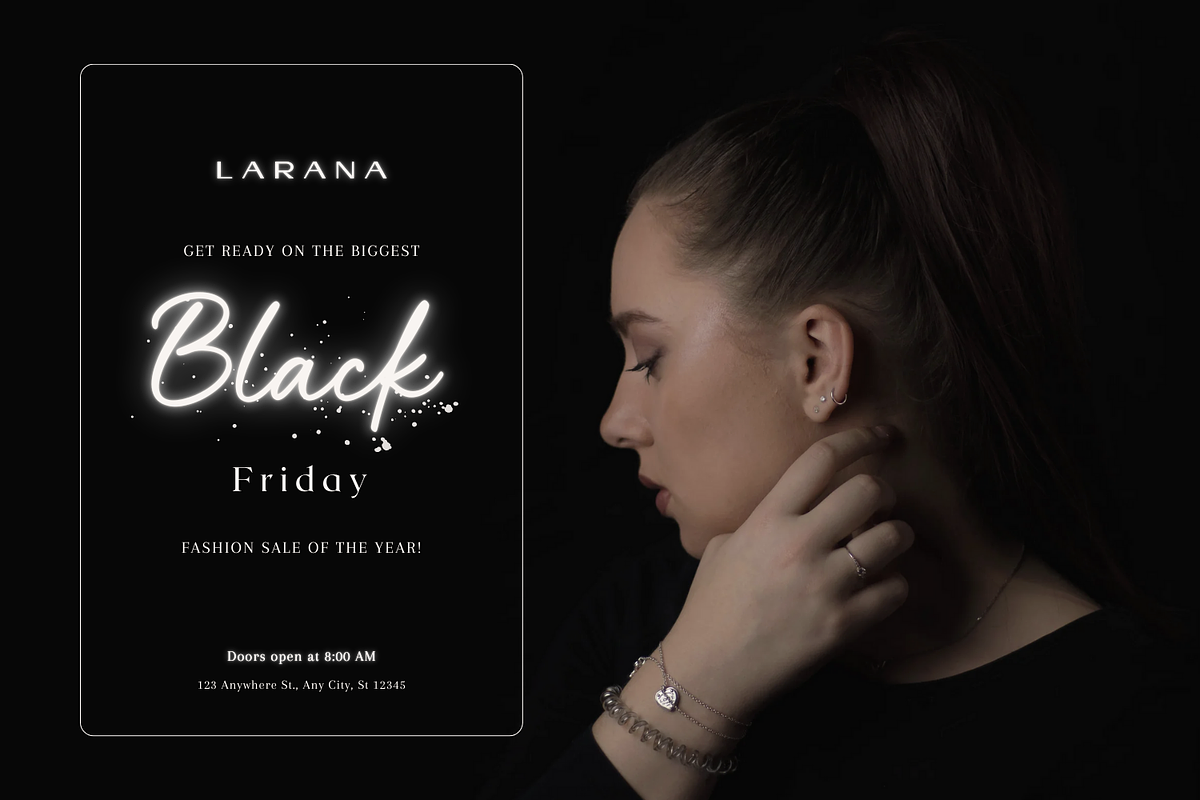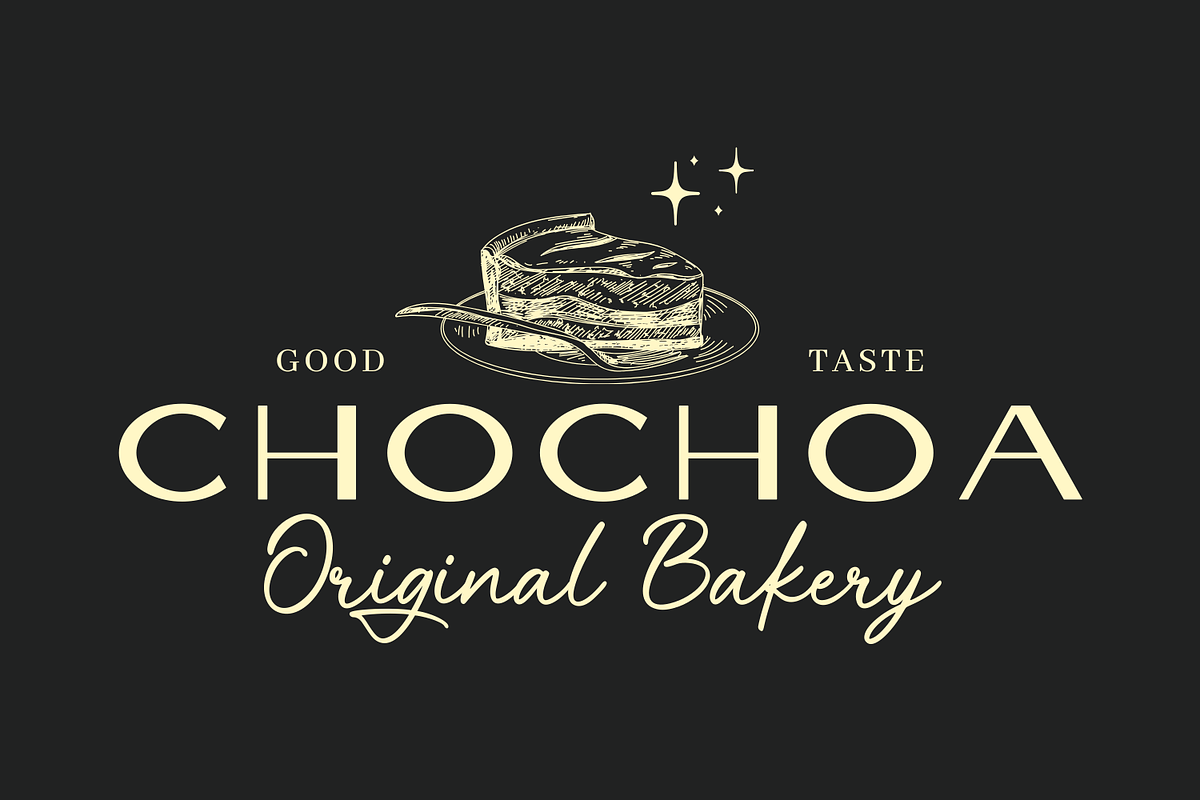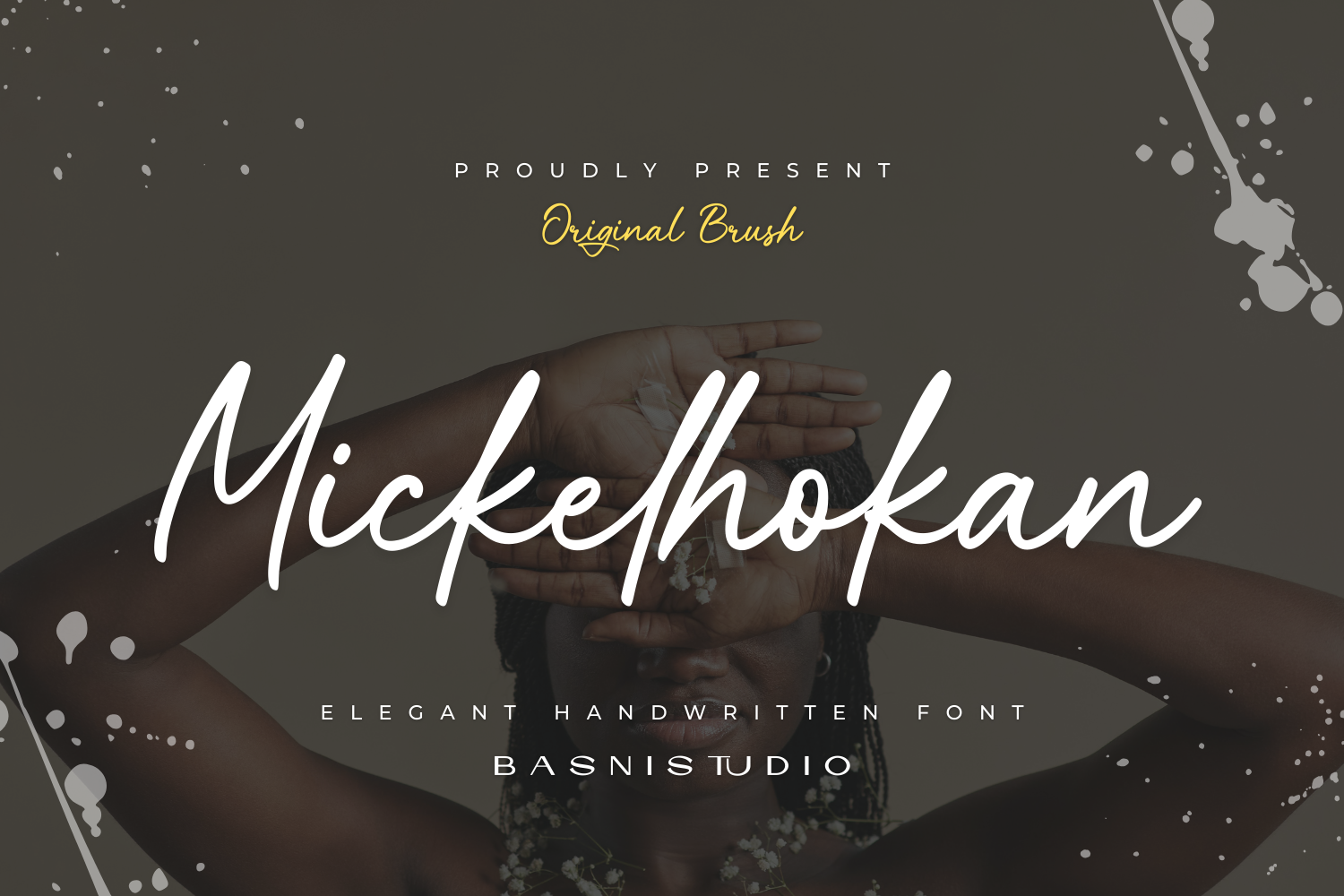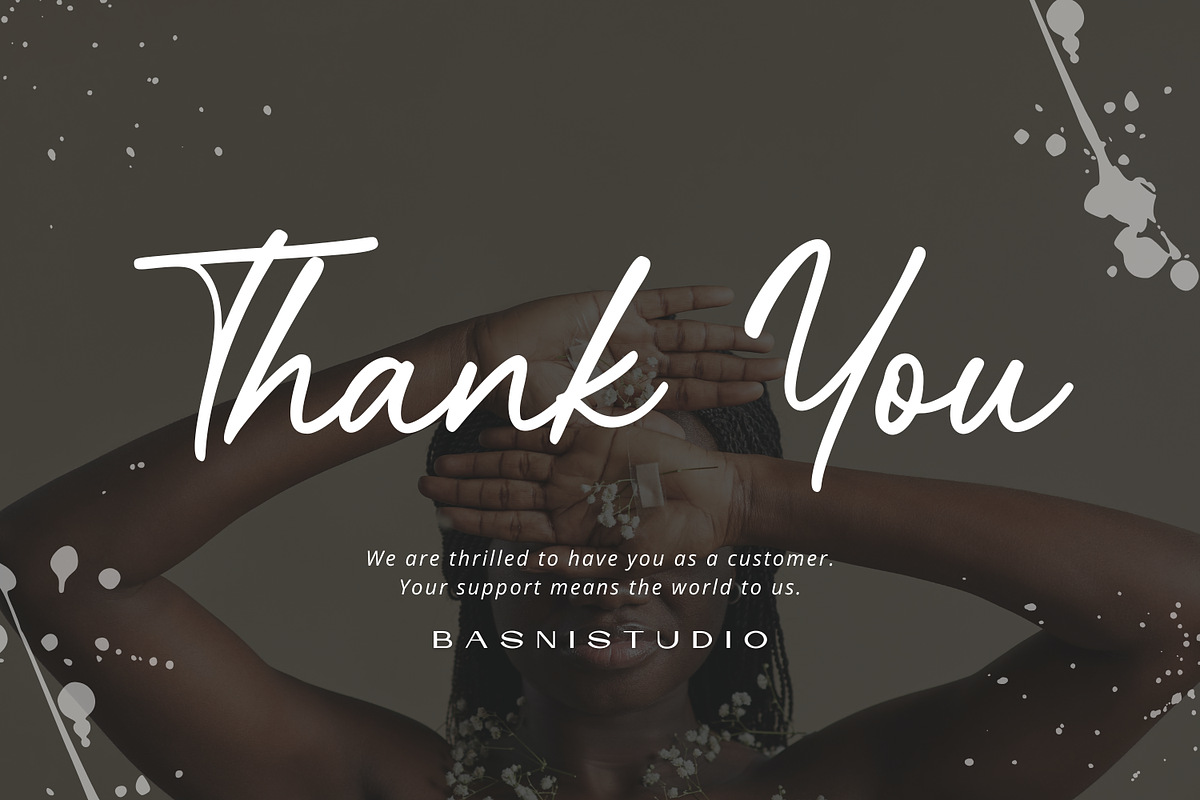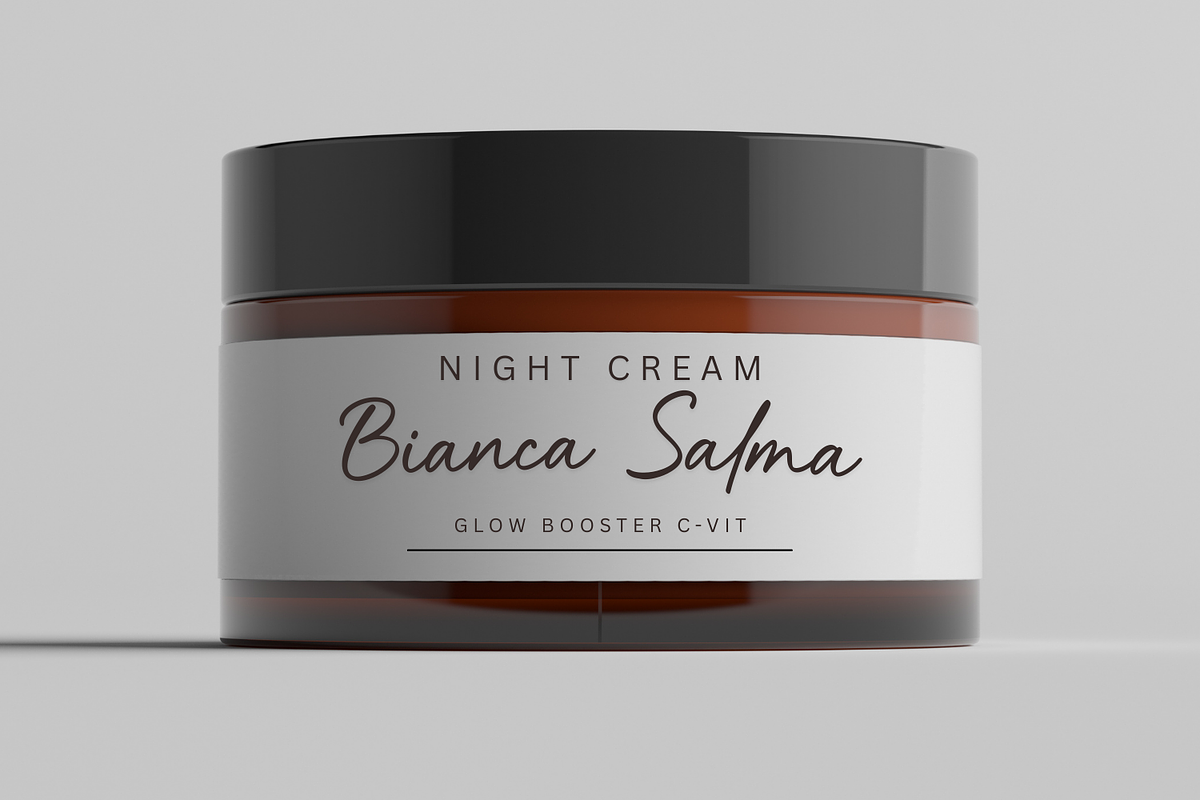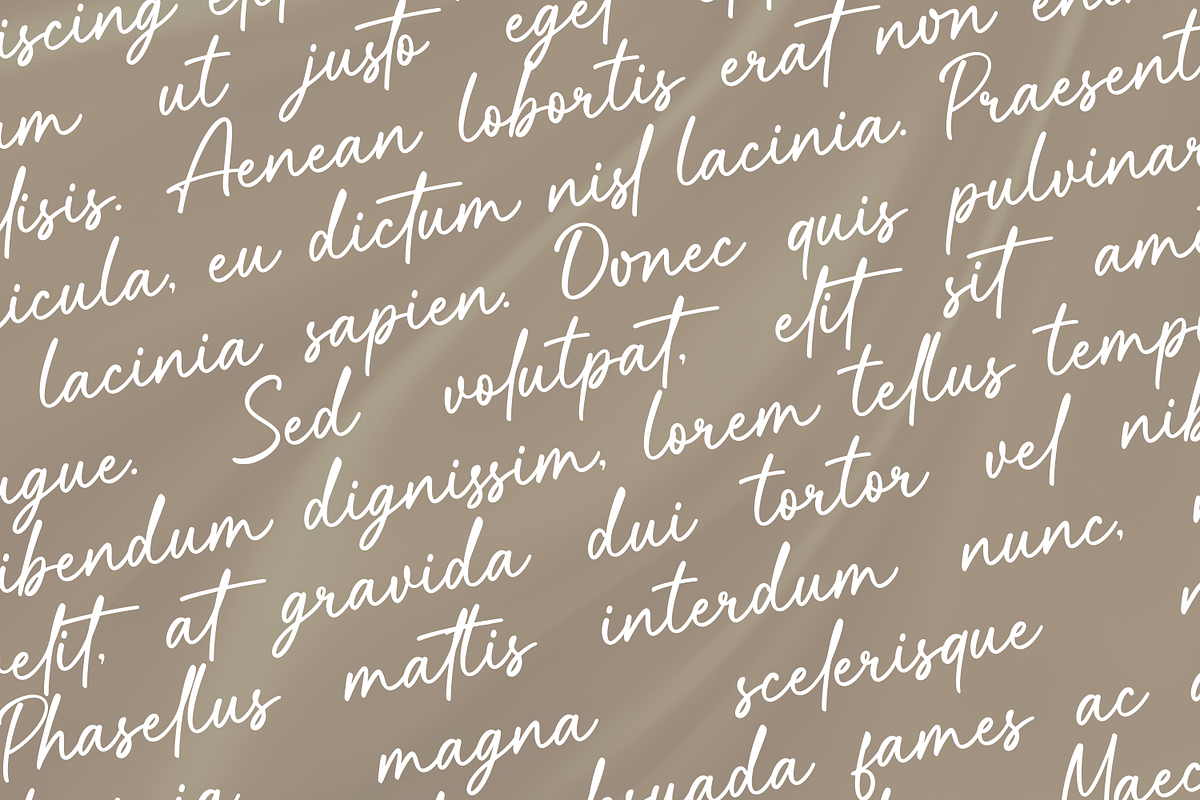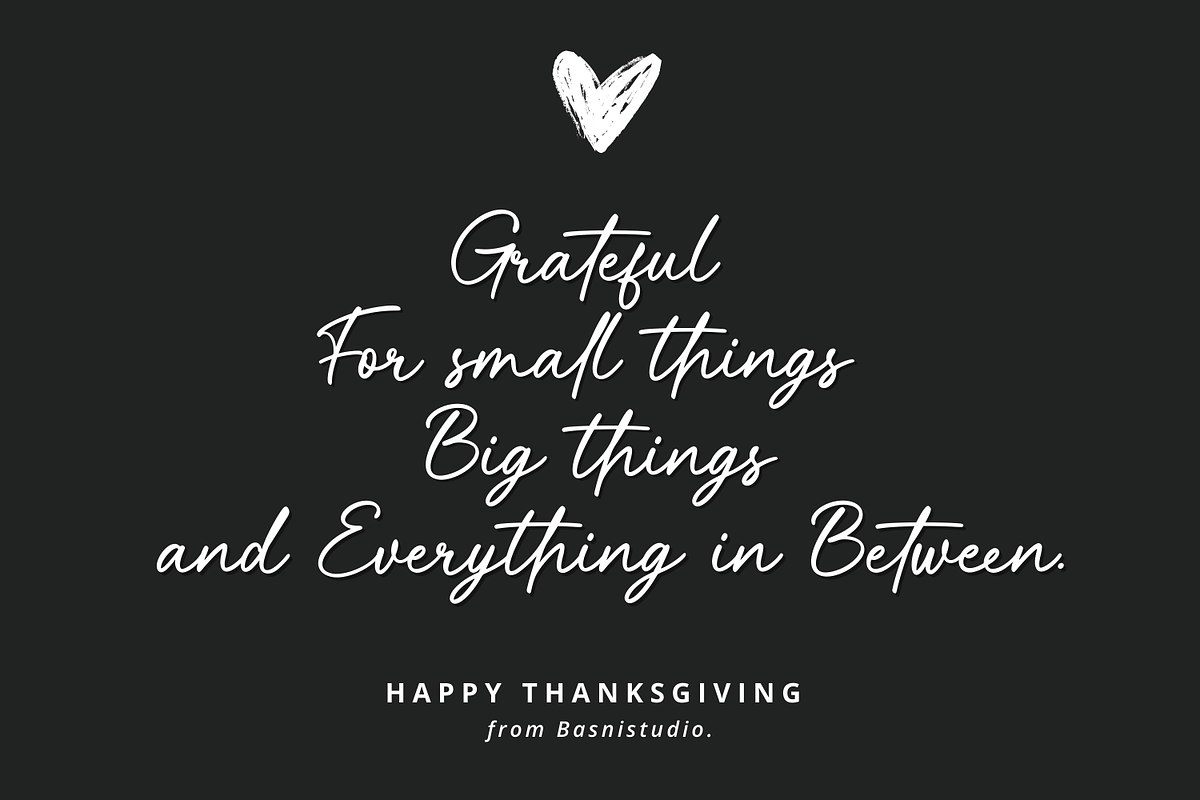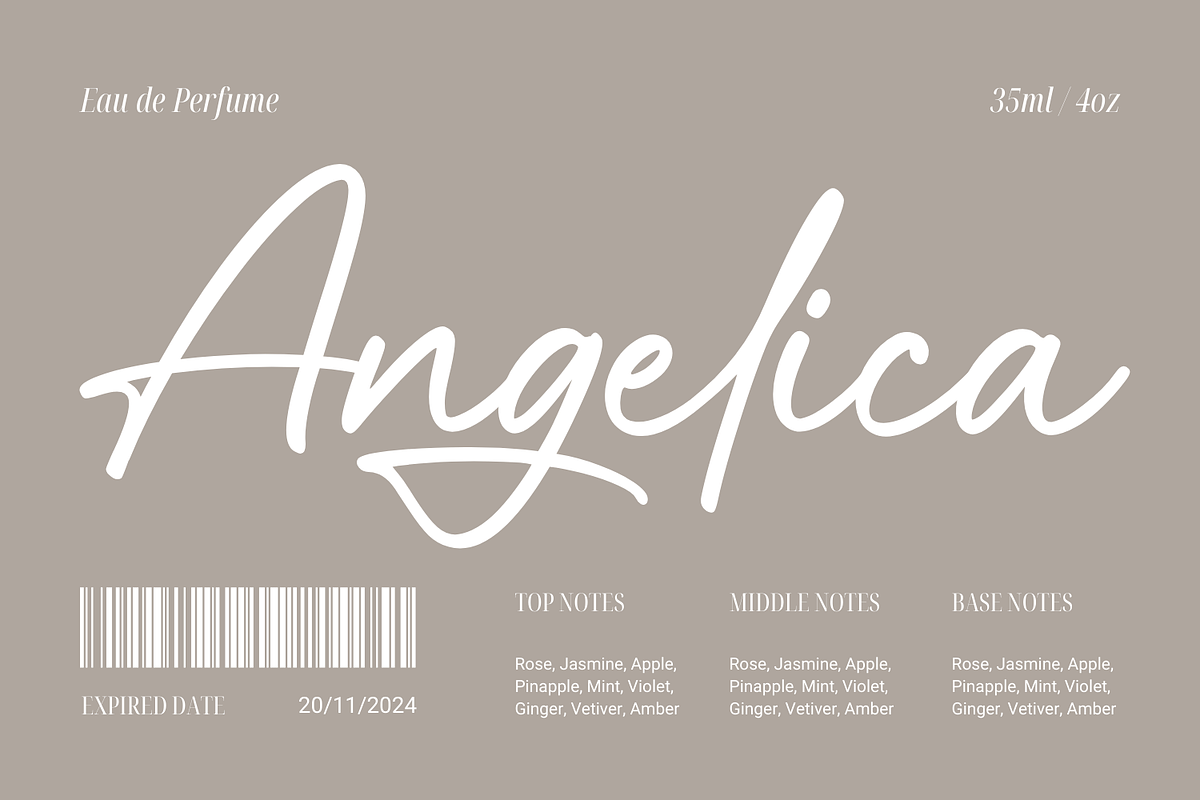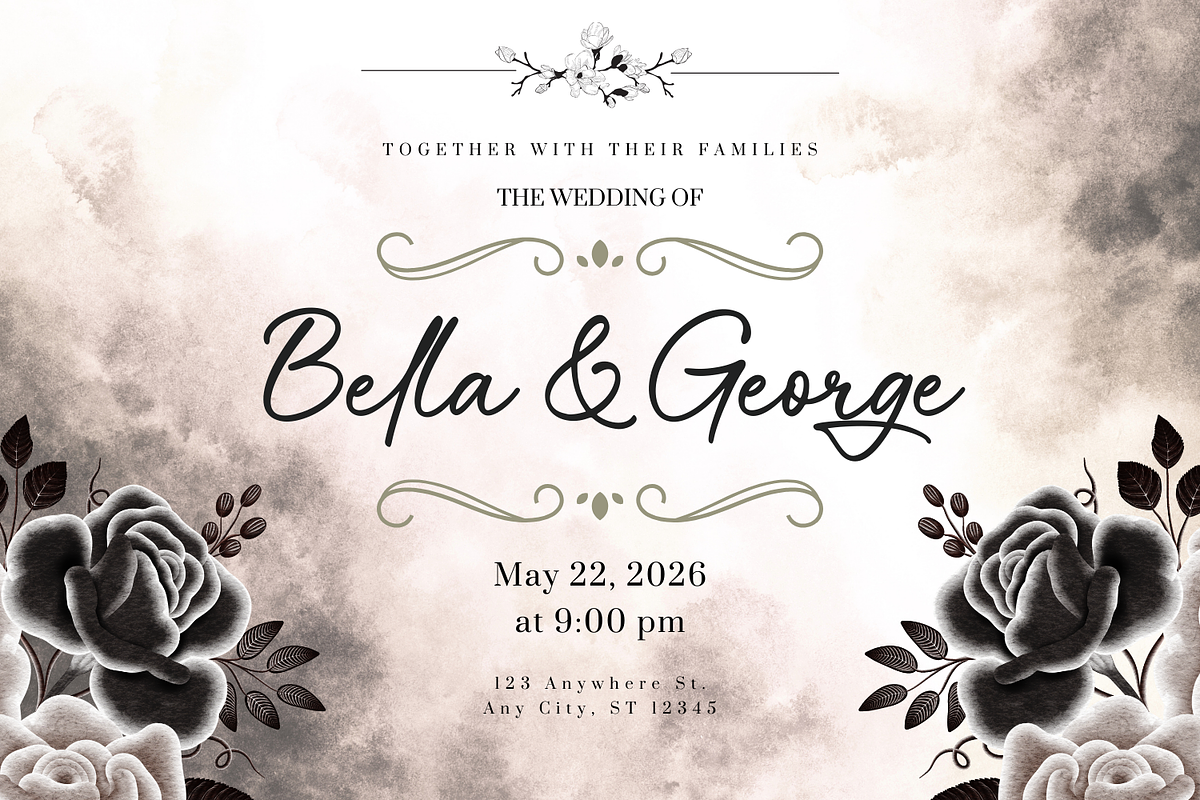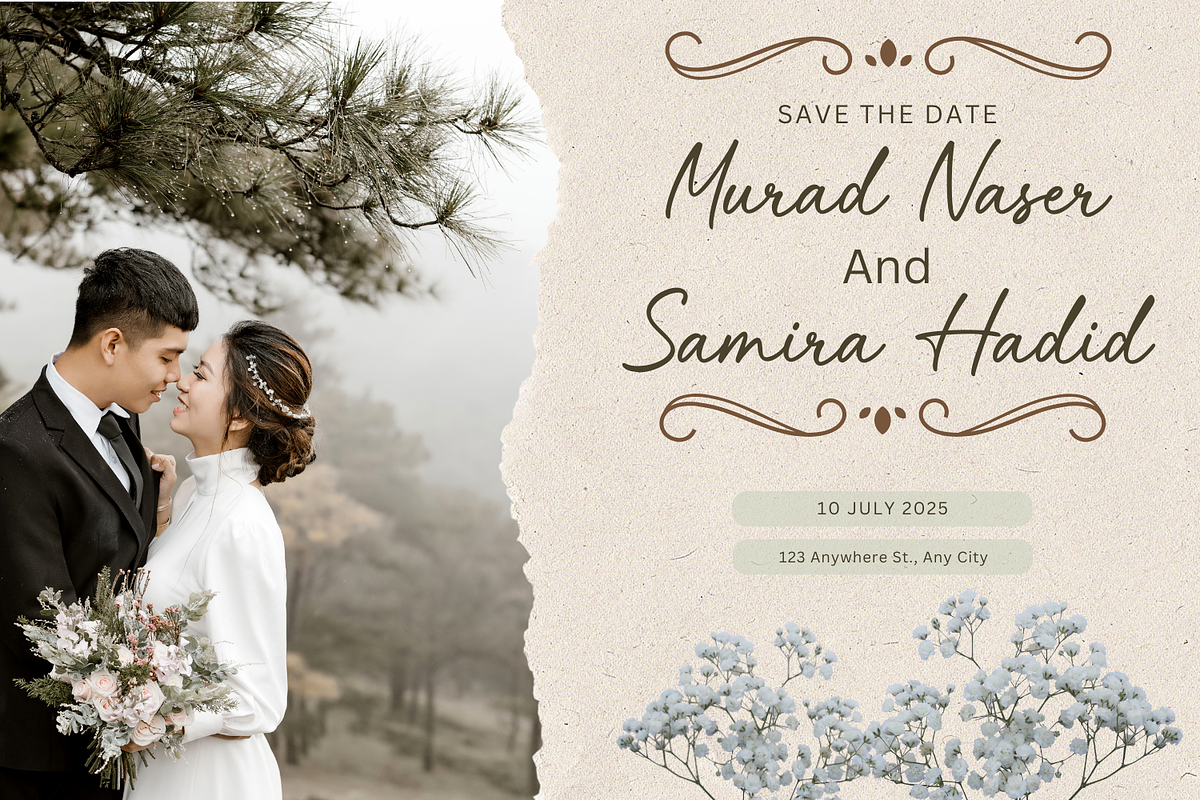
Mickelhokan a Handwritten Font
The Perfect Handwritting Touch for Your Designs
Introducing Mickelhokan, an elegant handwritten font crafted with authentic pen strokes for a sleek look and casual touch for everything from branding and social media to invitations and packaging.
Elegant & Casual – Perfect for tagline, quotes, greeting cards, and more Authentic Handwritten Feel – Created with authentic pen strokes for a natural look Easy to Use – Works seamlessly with all major design programs
Whether you're building a powerful brand identity or crafting a standout design,
Mickelhokan a Handwritting Font Created with real pen strokes for a Elegant look gives you the creative edge you need.
Uppercase & lowercase letters Ligature & Alternates Swashes Numbers & punctuation Multilingual Support ( Support for 90 languages )